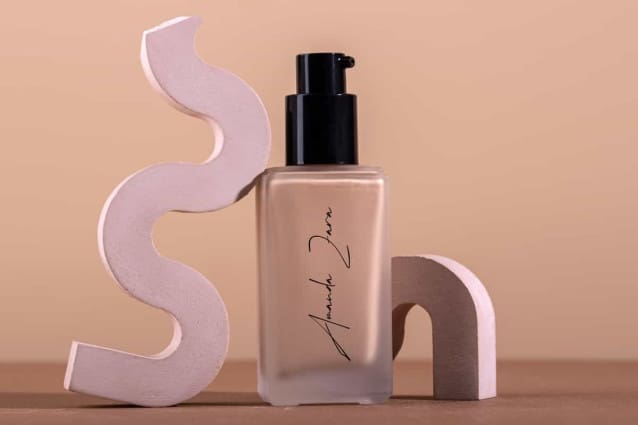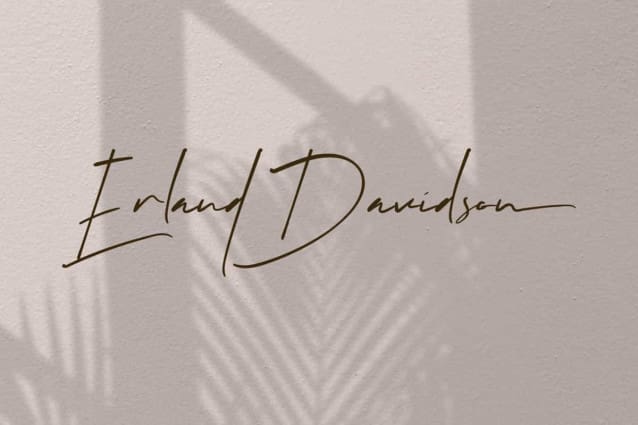
Erland Davidson Font
Erland Davidson Font is a sophisticated refined authentic thin handwritten signature font from by VinType Studio. This font has thin lines and is finely crafted to make the design look beautiful. This font will be suitable for many industries, such as advertising, beauty product, event or wedding organizer, design interior, fashion, handcraft, homeware, photography, spa and salon, and more!
Erland Davidson Font includes full set of Uppercase and Lowercase Basic Characters, Numerals, Punctuation, Symbol, and Alternate. This font has its own charm that makes it look elegant, so it will work well with a lot of designs, such as brand logo, brochure, custom design, invitation, label, packaging design, quote, screen printing, stationery, website, etc.